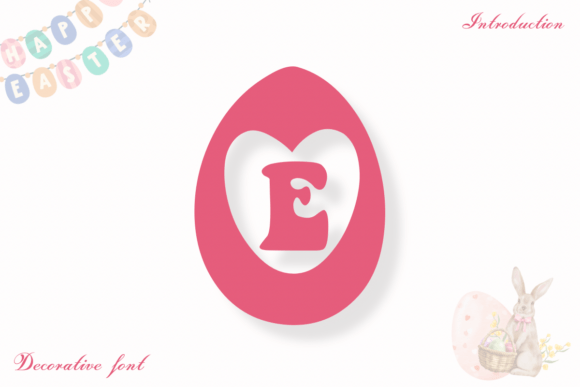
The Perfect Touch of Whimsy: Heart Easter Egg Font
Who hasn’t felt the thrill of discovering a new font that sparks creativity? It’s like stumbling upon a hidden treasure trove of inspiration. For designers, this feeling is especially exhilarating, as the right font can elevate a project from ordinary to extraordinary. And, if you’re anything like me, you’ll know that the perfect font can make all the difference in bringing your ideas to life.
Enter the Heart Easter Egg Font, a delightful decorative font that’s perfect for adding a touch of whimsy to your designs. Whether you’re taking notes, writing a diary, or creating greeting cards, this font is sure to bring a smile to your face. And, its versatility makes it a valuable asset for designers, who can use it to create everything from banners and social media posts to mugs and t-shirts.
- Font Family: Heart Easter Egg Font is a unique, hand-drawn font designed for special occasions.
- Character Set: Includes a wide range of characters, including uppercase and lowercase letters, numbers, and special characters.
- Unique Characteristics: Features a distinctive, hand-drawn design with a mix of bold and delicate lines, giving it a whimsical feel.
Heart Easter Egg Font Review
Overall, I’m quite impressed with the Heart Easter Egg Font. It’s a unique and creative take on traditional fonts. ✨ The design is playful and captures the spirit of Easter perfectly. The font is perfect for holiday-themed designs, invitations, and social media graphics.
- ✨ Customizable: The font offers various customization options, including color and size adjustments, which make it suitable for a wide range of designs.
- ✨ Easy to read: Despite its playful design, the font is still easy to read, making it a great choice for body text or headings.
- ✨ Easter theme: The font’s Easter theme makes it perfect for spring and Easter-related designs.
- ⚠️ Limited language support: The font may not support all languages, which could be a limitation for designers who need to work with non-English texts.
- ⚠️ Not suitable for formal designs: The font’s playful design may not be suitable for formal or professional designs, such as business reports or academic papers.
Overall, I would recommend the Heart Easter Egg Font for designers who need a unique and playful font for holiday-themed designs. While it may have some limitations, its customization options and easy readability make it a great choice for many projects.
Common use cases for the Heart Easter Egg Font include:
1. Valentine’s Day and Easter-themed designs.
2. Whimsical and playful branding.
3. Adding a touch of warmth and personality to your designs.
Tips for getting the most out of the Heart Easter Egg Font include:
1. Using it in combination with bold and bright colors.
2. Experimenting with different font sizes and styles.
3. Pairing it with other playful and whimsical design elements.